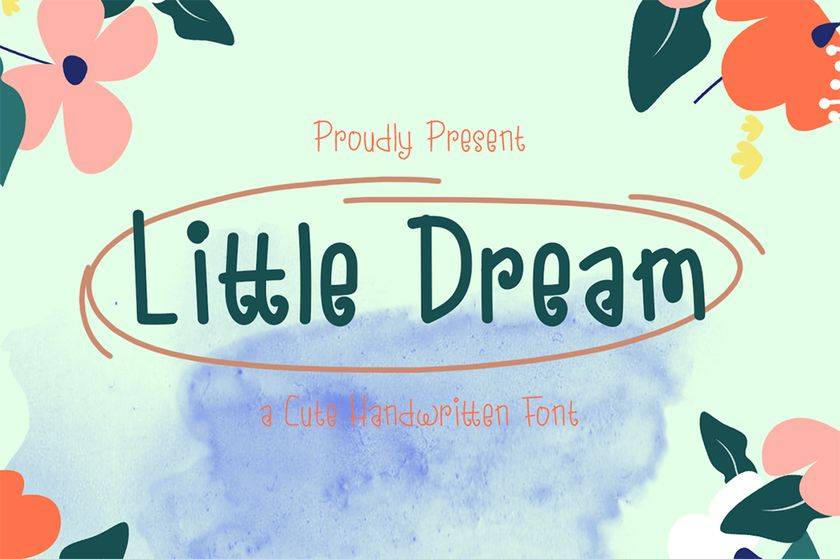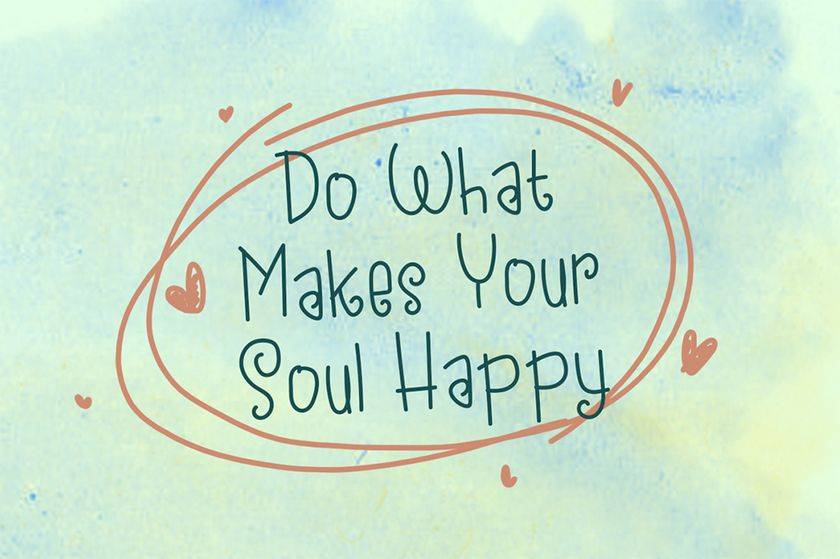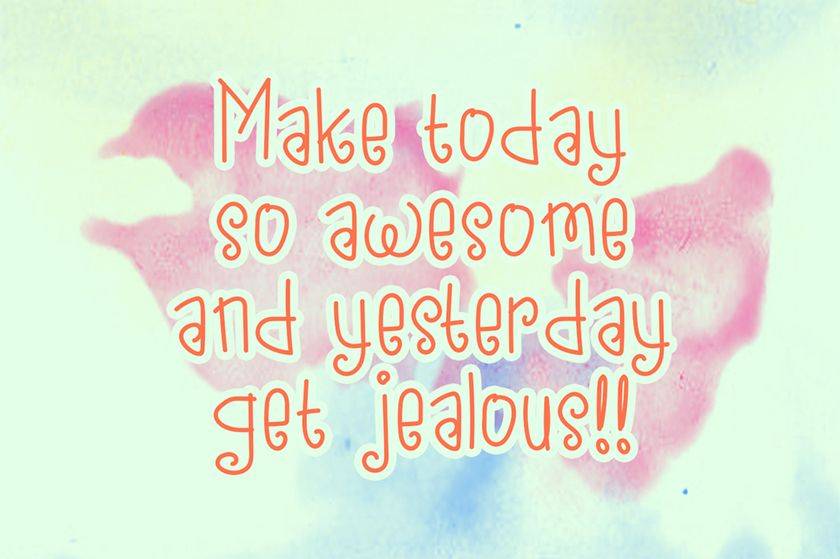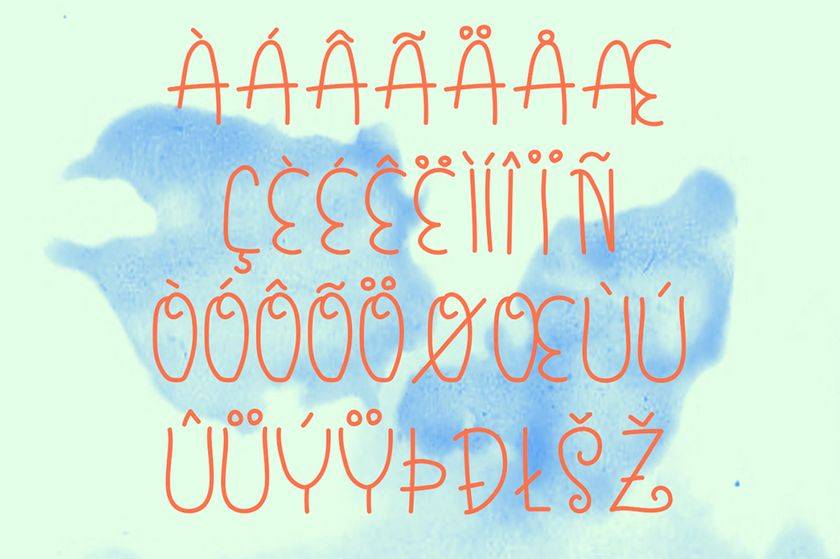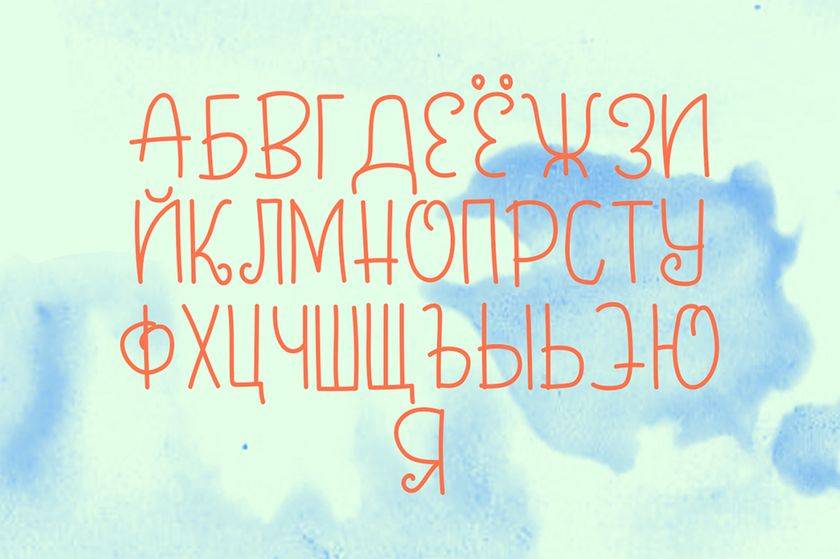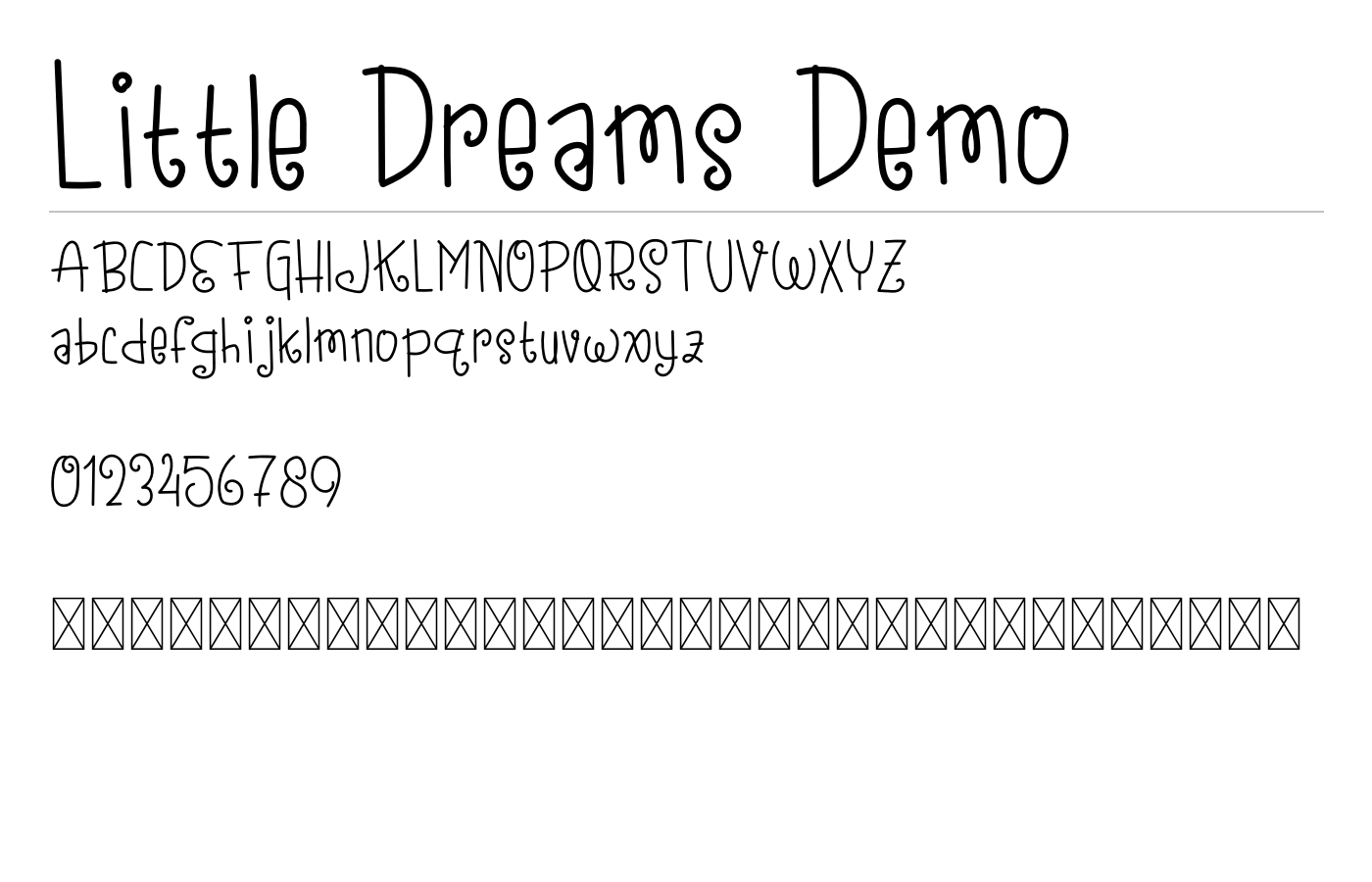
Little Dreams is a playful, handwritten sans serif font with a light weight and narrow width, featuring whimsical, irregular letterforms that evoke a childlike, friendly feel. Its quirky curls and loops give it a casual and approachable personality, making it perfect for creative projects, children’s books, and informal branding. This font works well in headlines and decorative uses where a fun, personal touch is desired.
Little Dreams Font
About Little Dreams Font
| Font family | Little Dreams Font |
| Languages supported | Latin, Cyrillic |
| Release date | 2021-04-26 |
| Designer | Esa Prasetio Nugroho |